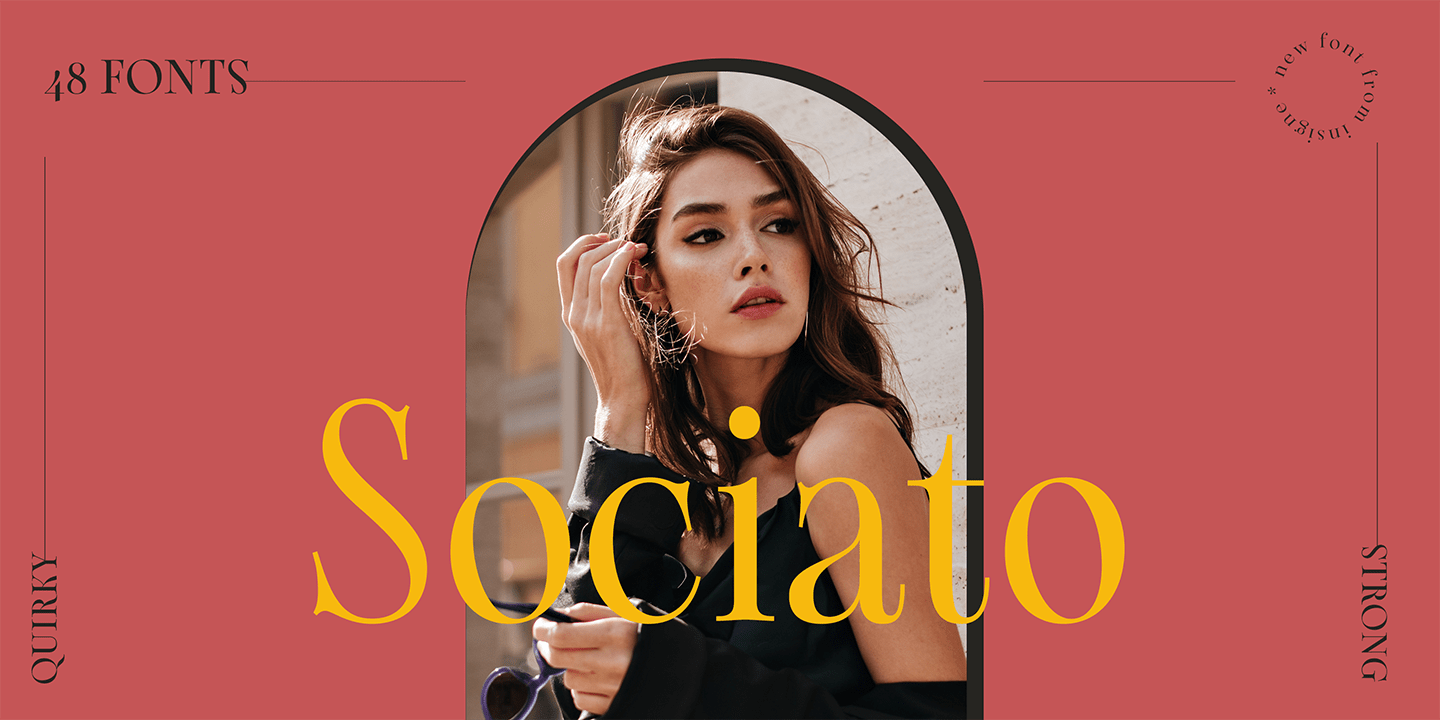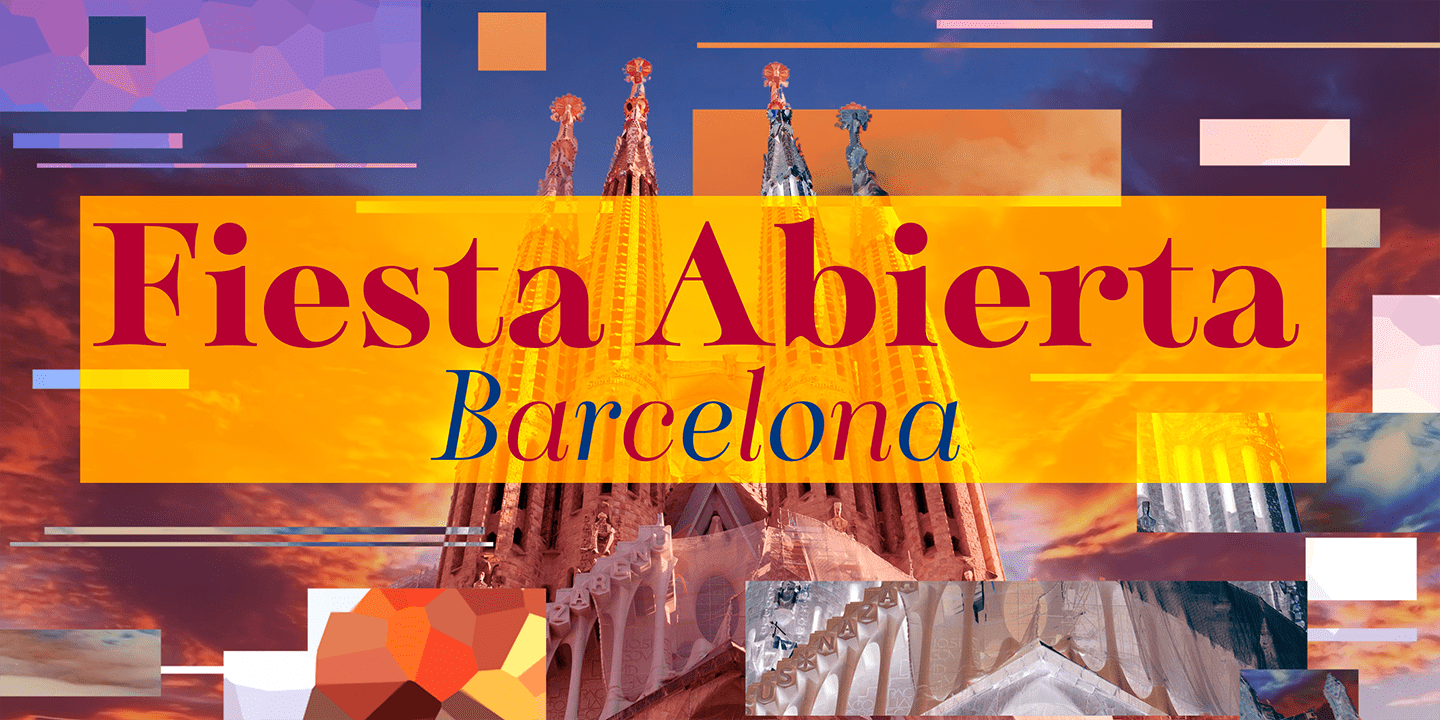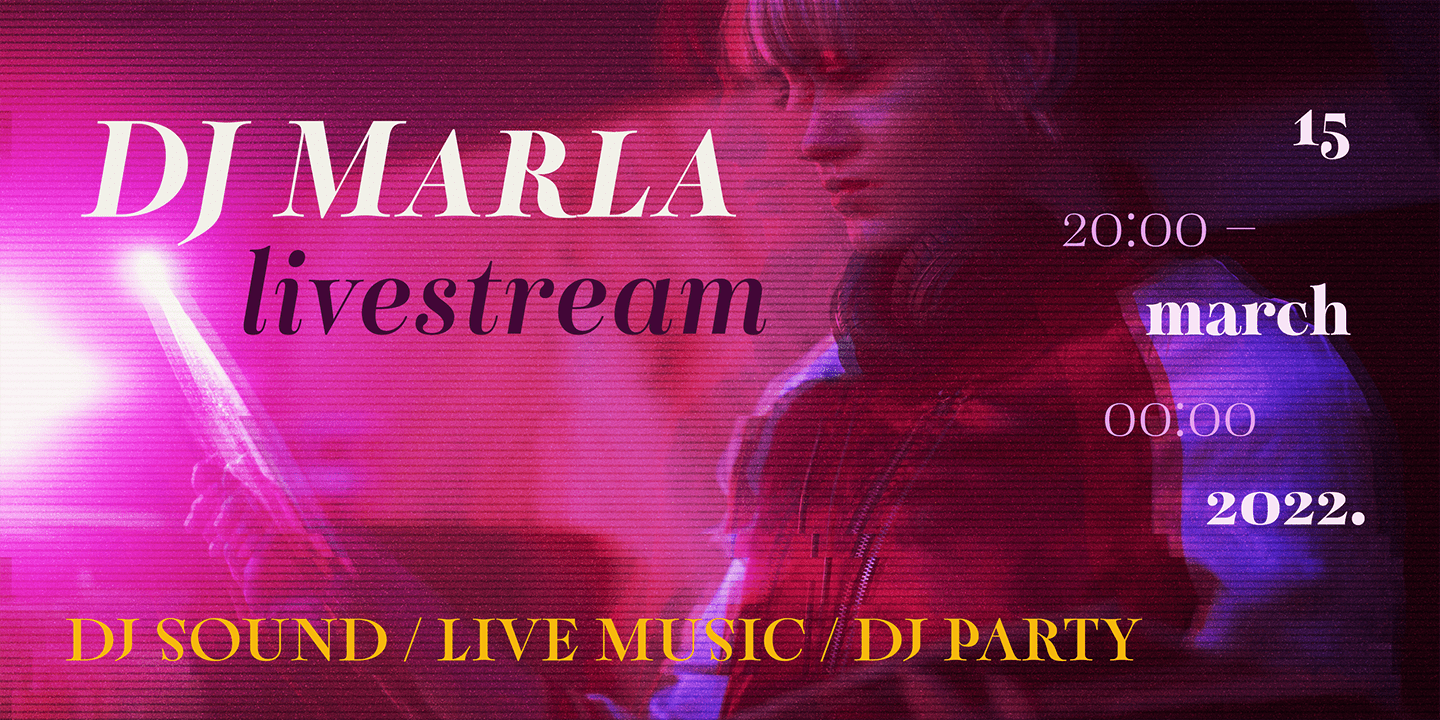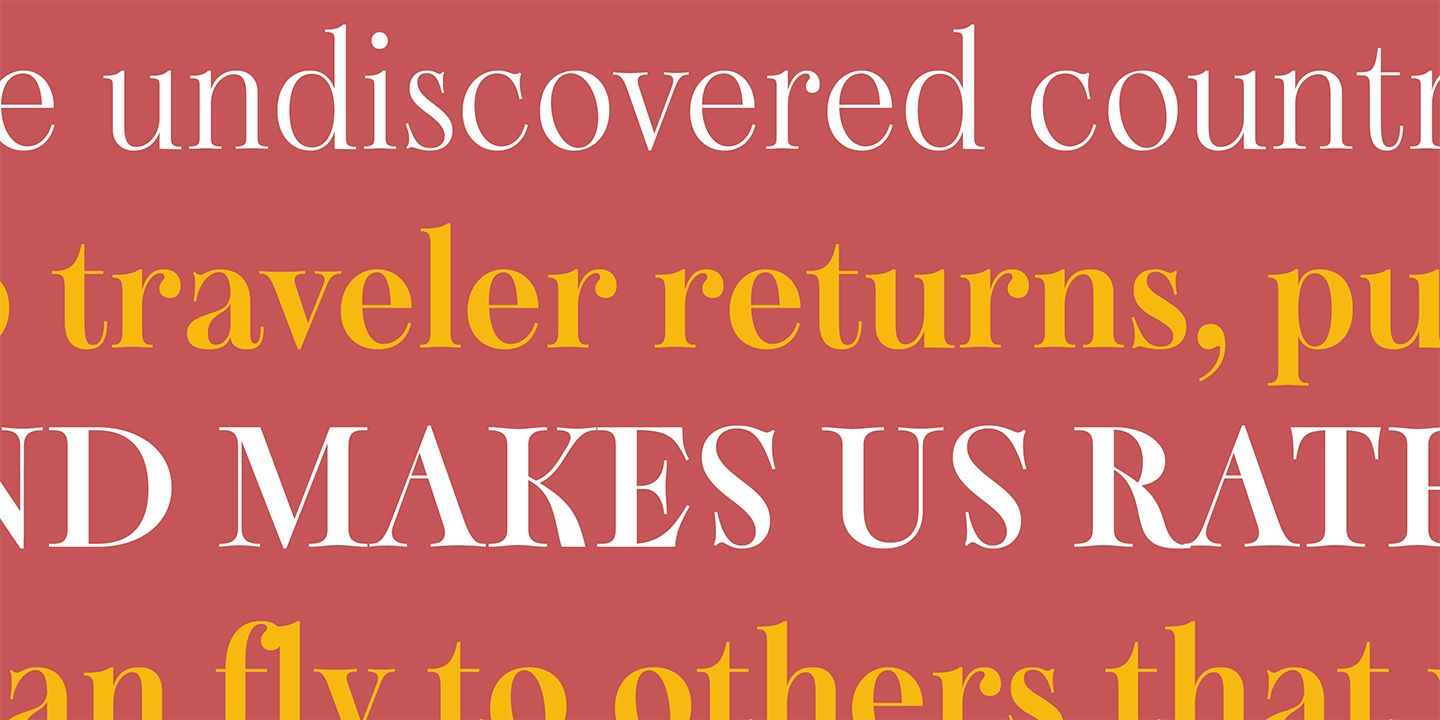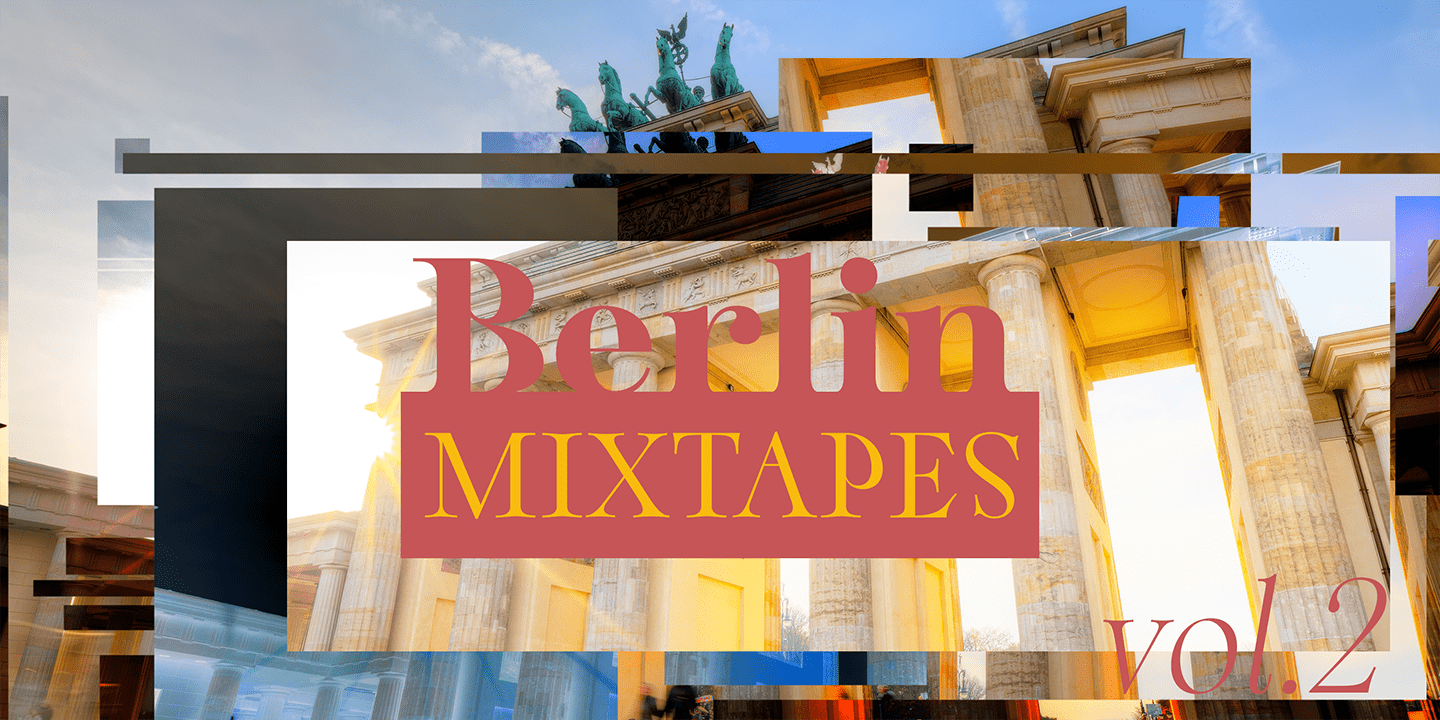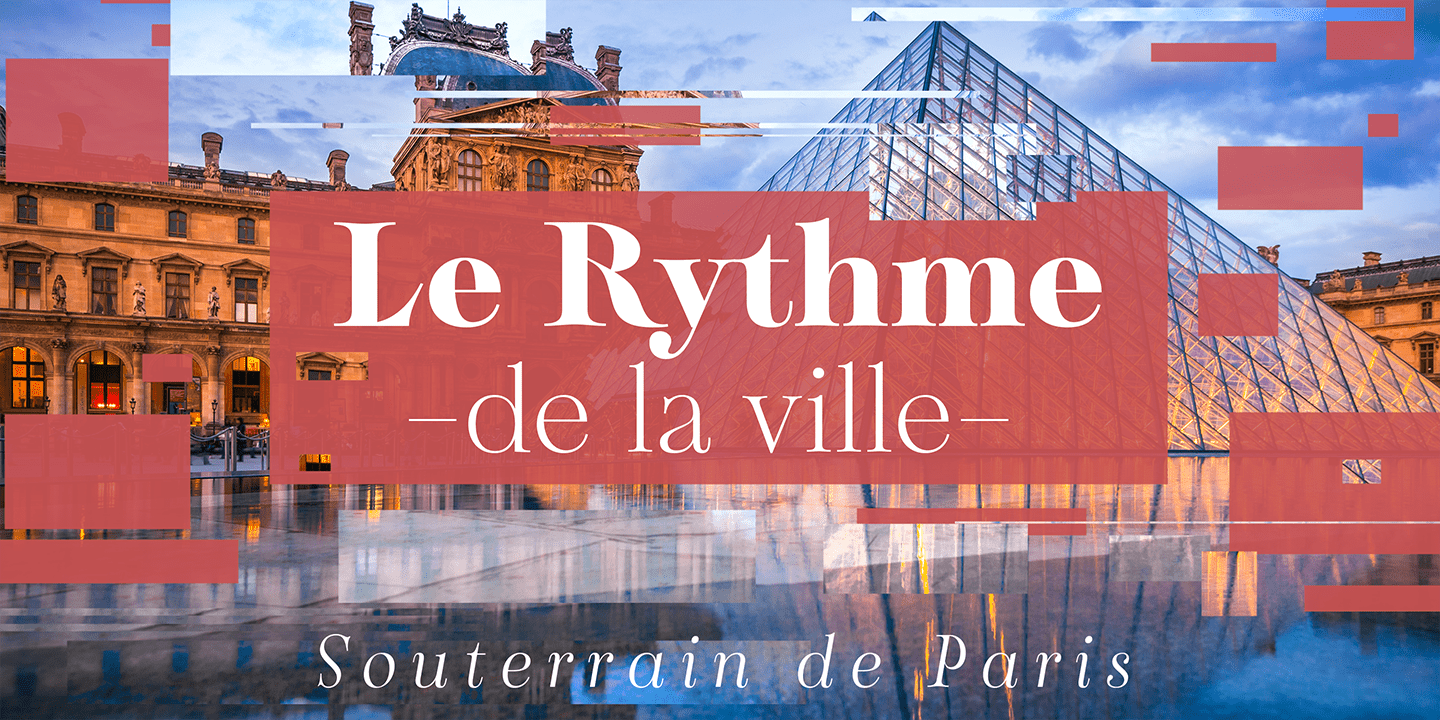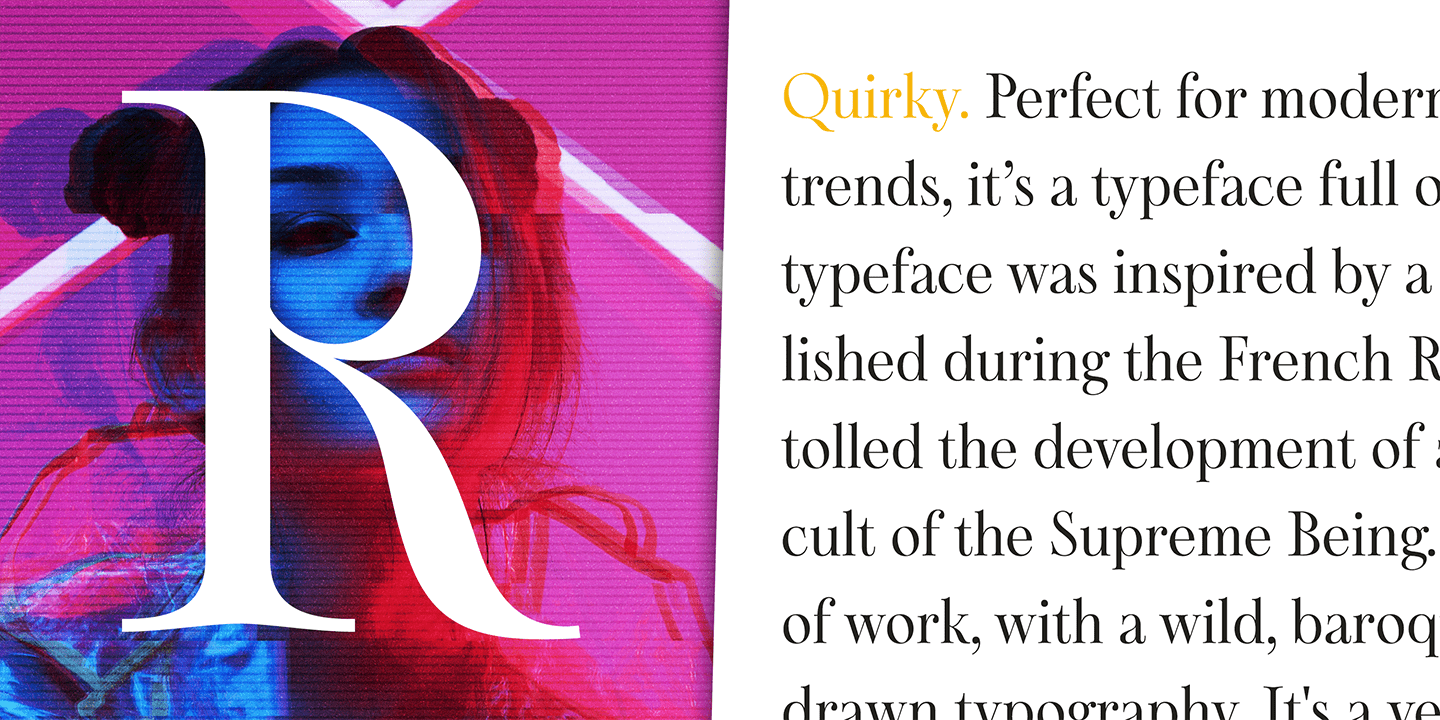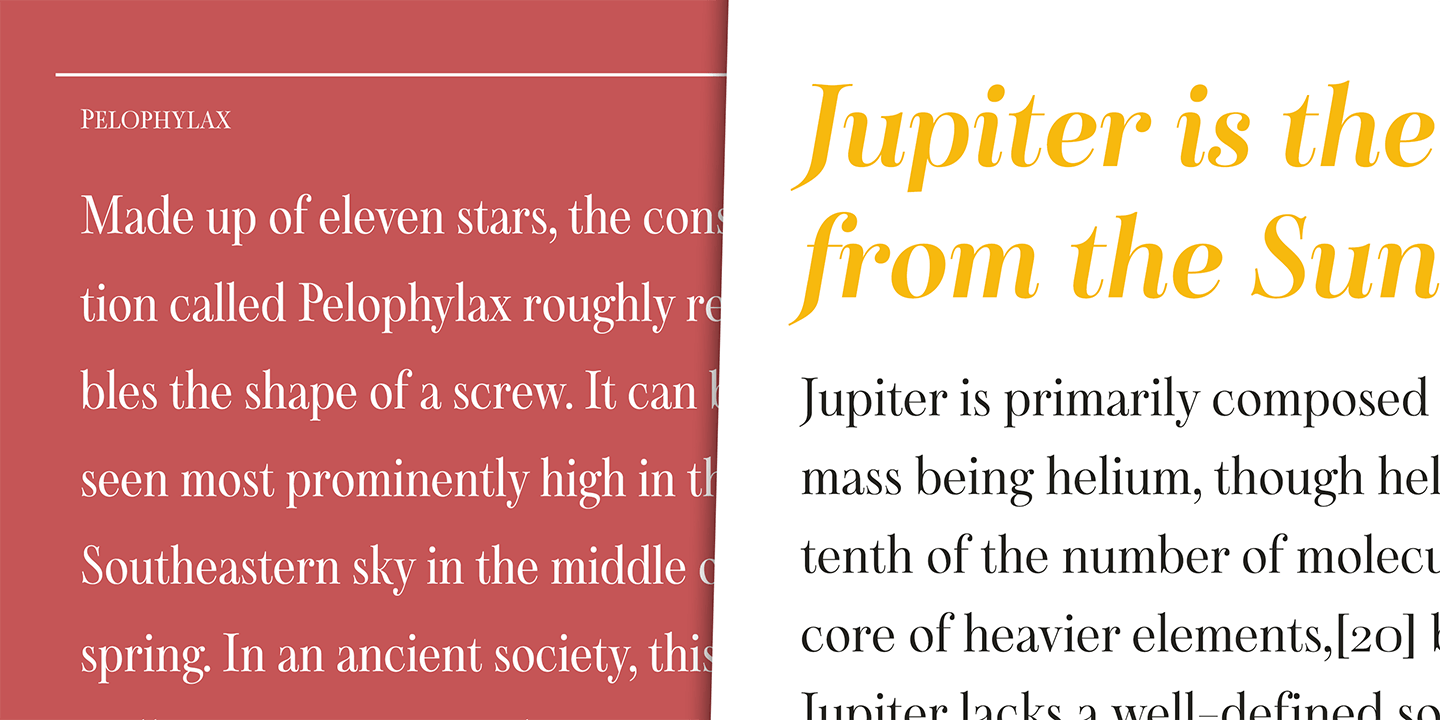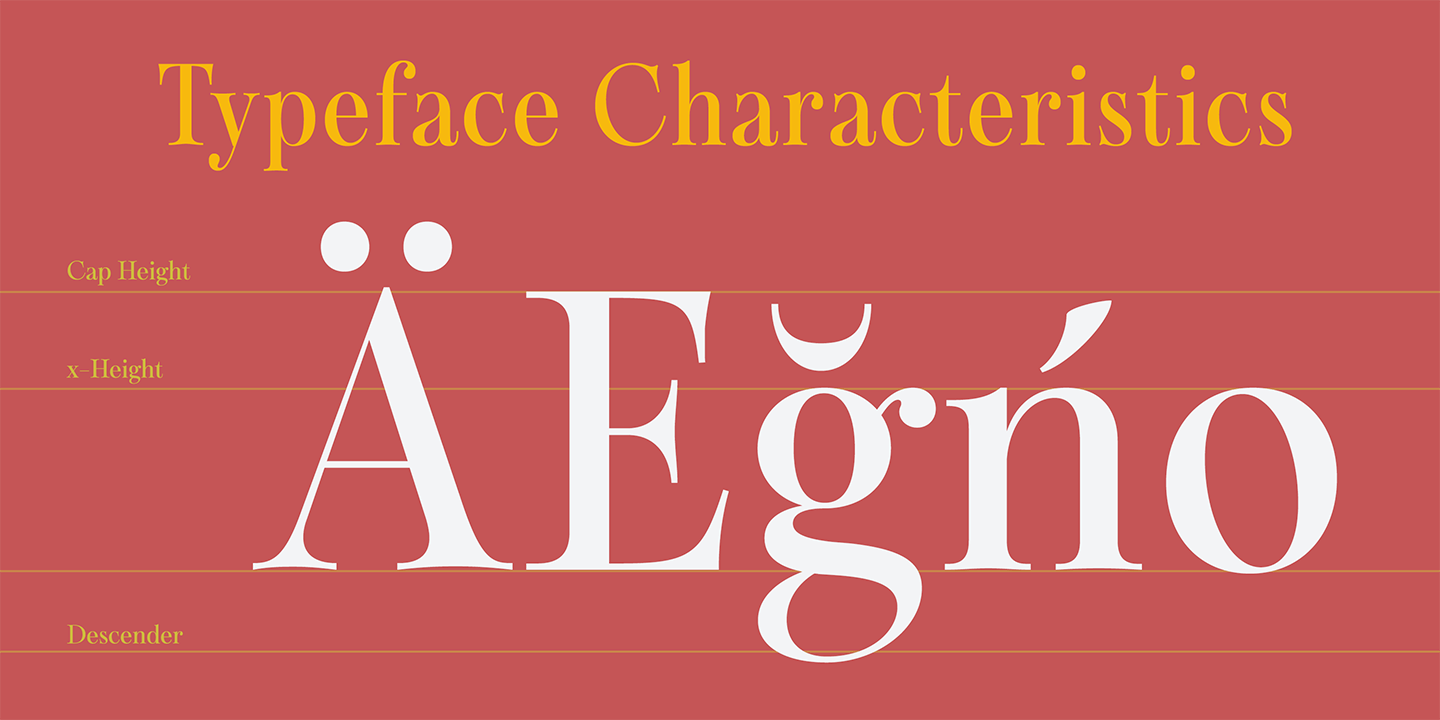
Sociato
Font Family by Insigne
Introducing Sociato: a typographic trendsetter. It's a quirky font that perfectly blends modernity and antiquity.
The French Revolution was a period of uncompromising innovation in art and fashion, with celebrity artists, notably Jacques Louis David, creating propaganda for the new regime. This regime failed, but we have rare historical artifacts related to this historical upheaval.
The typeface was inspired by a declaration published during the French Revolution that extolled the development of a new religion, the cult of the Supreme Being. It's a stunning piece of work, with a wild, baroque layout and hand drawn typography. Words leap off the page in a cascade of sounds and shapes, and quirky letterforms give it a lively, almost mischievous character. It's a veritable goldmine of typographic ideas.
This typeface is based on the hand lettering in the original manuscript, but it has been enhanced by adding a full variety of characters. The typeface comes with a comprehensive range of diacritics, including old-style figures. The typeface is suitable for a wide range of uses, including titles and headers, and it should look beautiful in any typographic setting.
Use Sociato to create a revolutionary identity, as bold and audacious as the French Revolution!